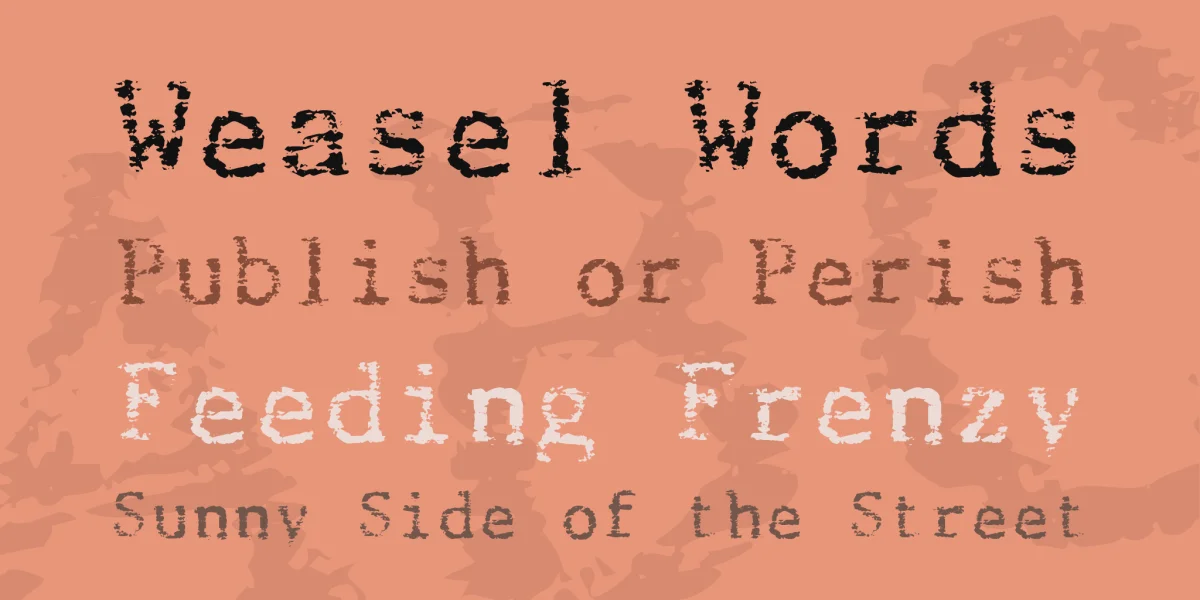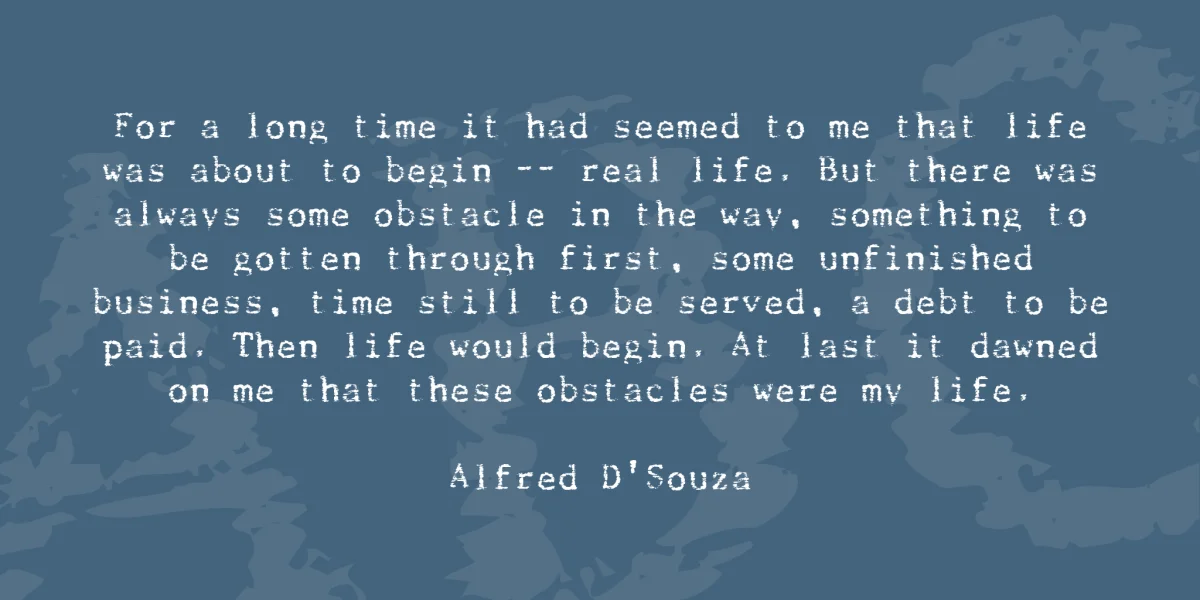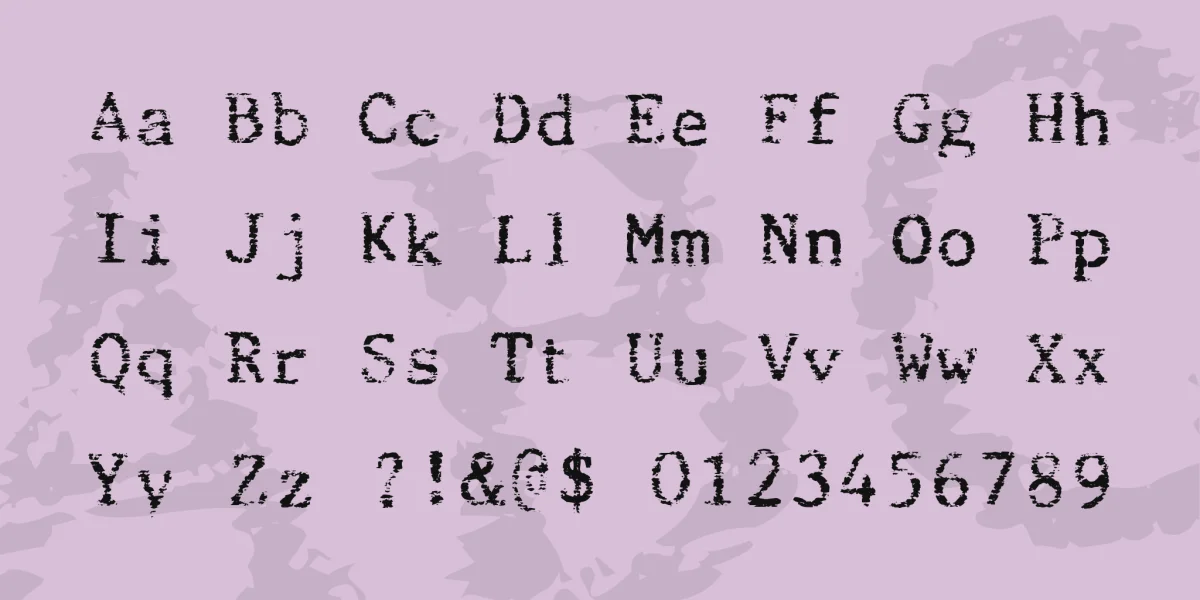
Working titles for this font were obvious things like "Crime Wave" and "Criminologist" and such along those lines. But then I decided it'd be cute to name it after somebody dead and latinate, which is common for serious typefaces but downright silly for a munged typewriter font. I like silly. Cesare Beccaria was an 18th-century Italian who wrote what is probably the first really important book on crime, see, so it all works together if you squint.
All that aside, I realized one day that I'd had fontmaking as a hobby for a couple of years now and still hadn't made any sort of typewriter font. Around the same time, I was doing a lot of work up at the public library downtown, including some typing, and Beccaria was born.
The ribbons on the library typewriters aren't THAT bad, of course; I exaggerated a little. But they're pretty rotten on some days! Since I built the font based on samples from a real typewriter, the character set is ALMOST a complete keyboard set - the couple of missing characters have been replaced by bullets.